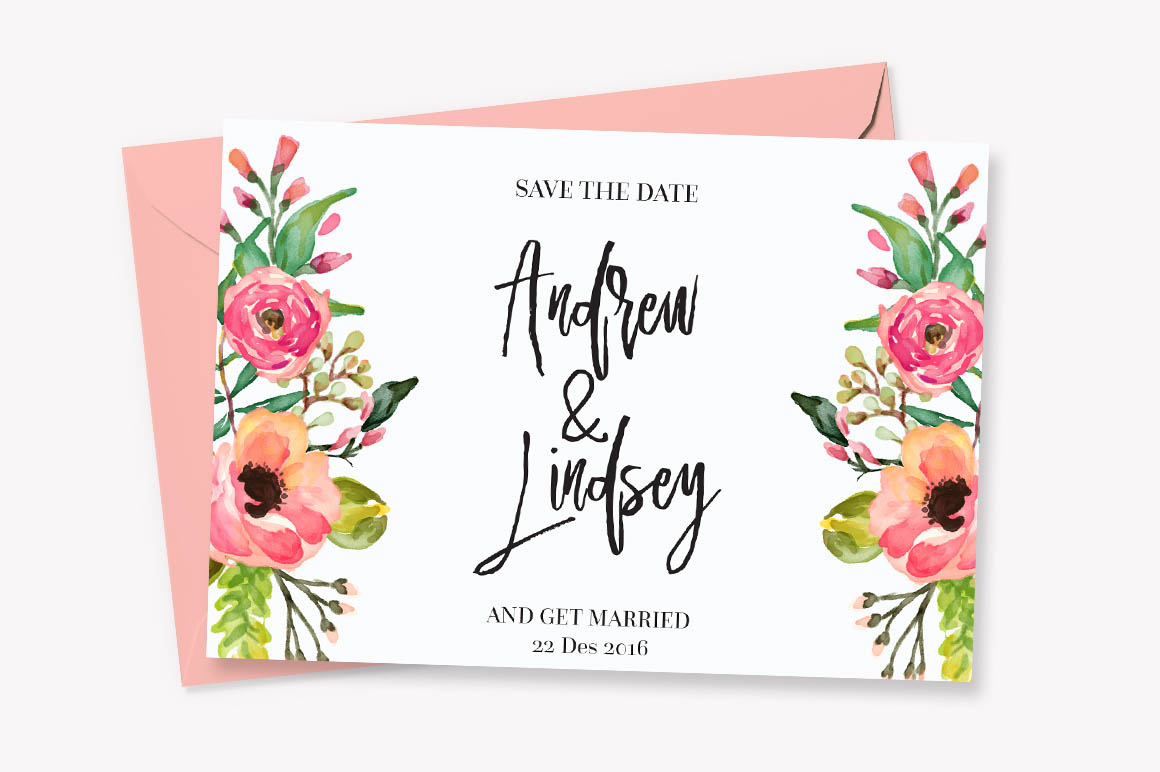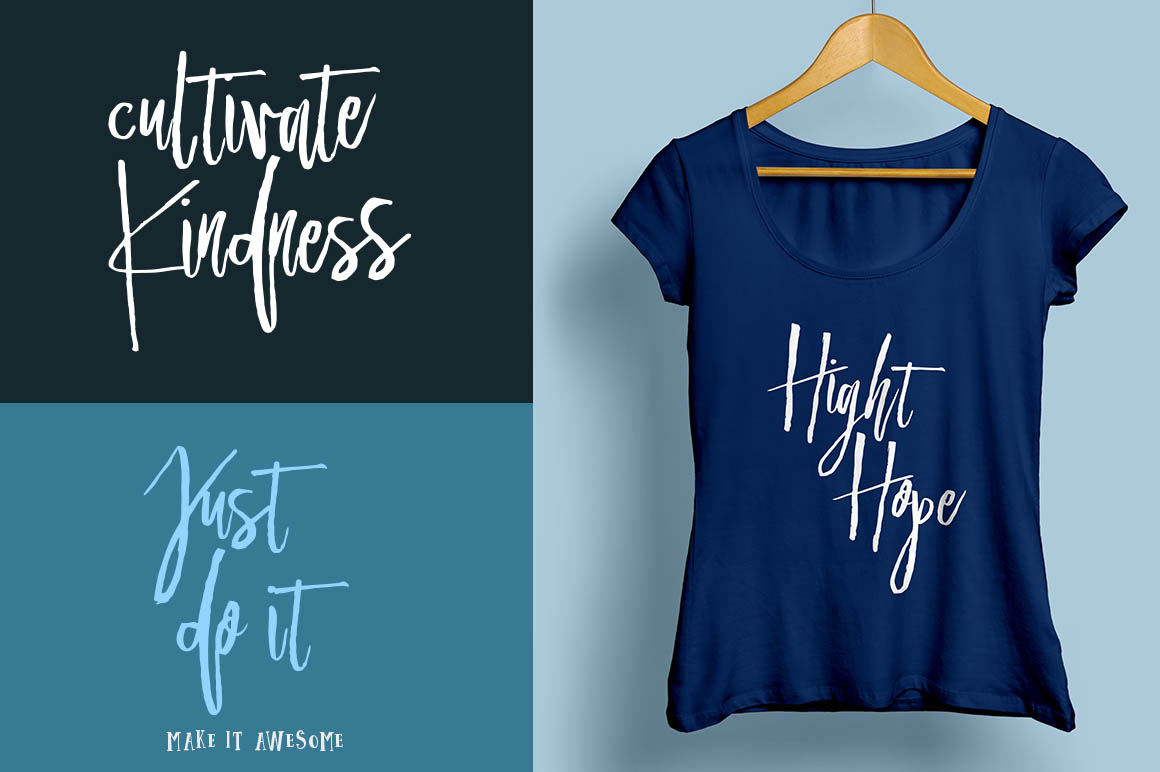
Beautiful Dreams – Free Brush Font
This creative brush scriot font is from Dirtyline Studio. Great for your new creative projects. Download and enjoy 😉